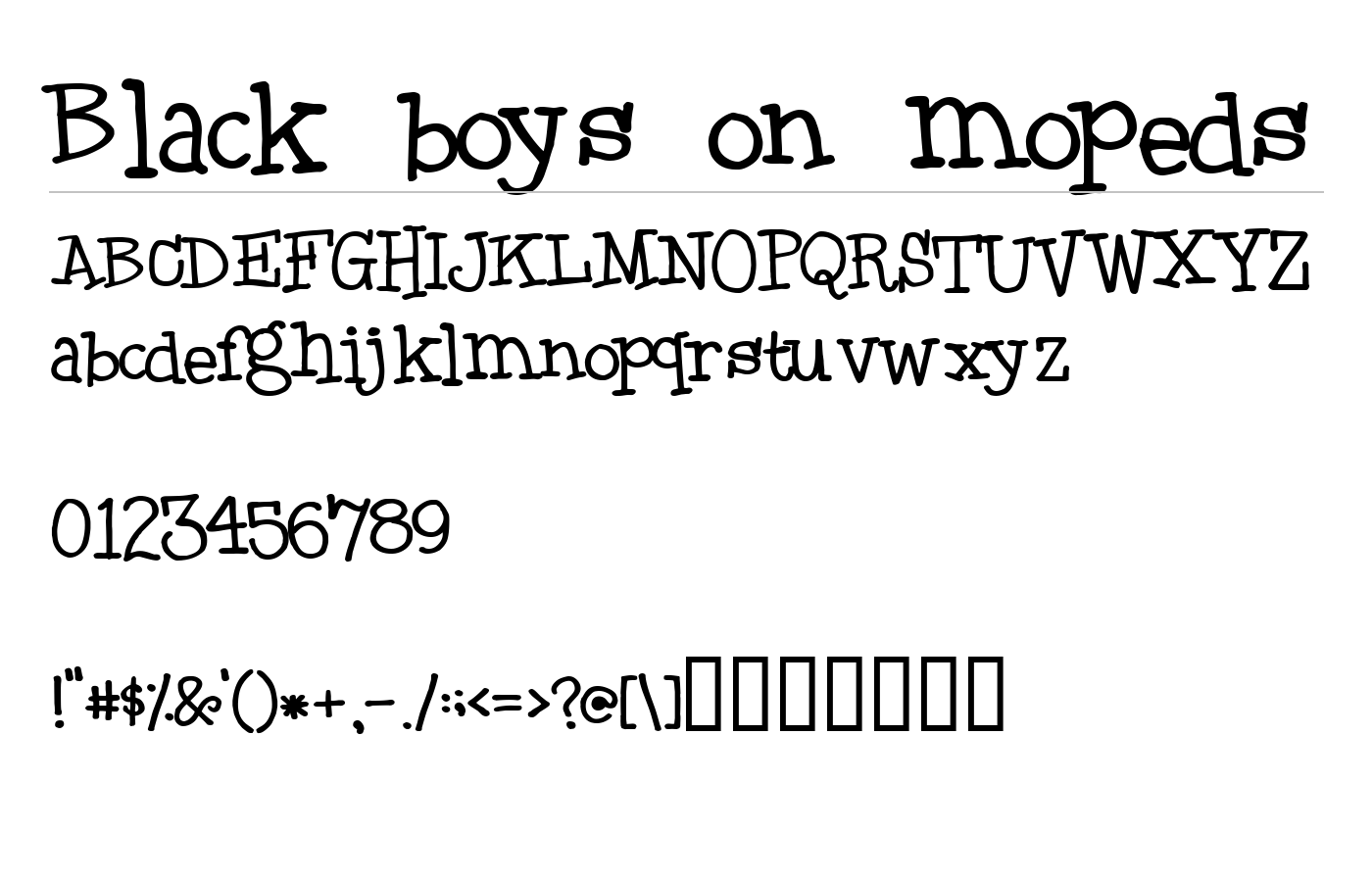
Black boys on mopeds is a playful and quirky serif font with a hand-drawn, slightly irregular style that gives it a casual and friendly personality. Its medium weight and moderate contrast, combined with unique, uneven letterforms and double-story characters, make it perfect for creative projects, informal branding, and fun headlines where a touch of individuality and charm is desired. This font shines in contexts like posters, children’s books, or casual branding, adding warmth and approachability to any design.
Black boys on mopeds Font